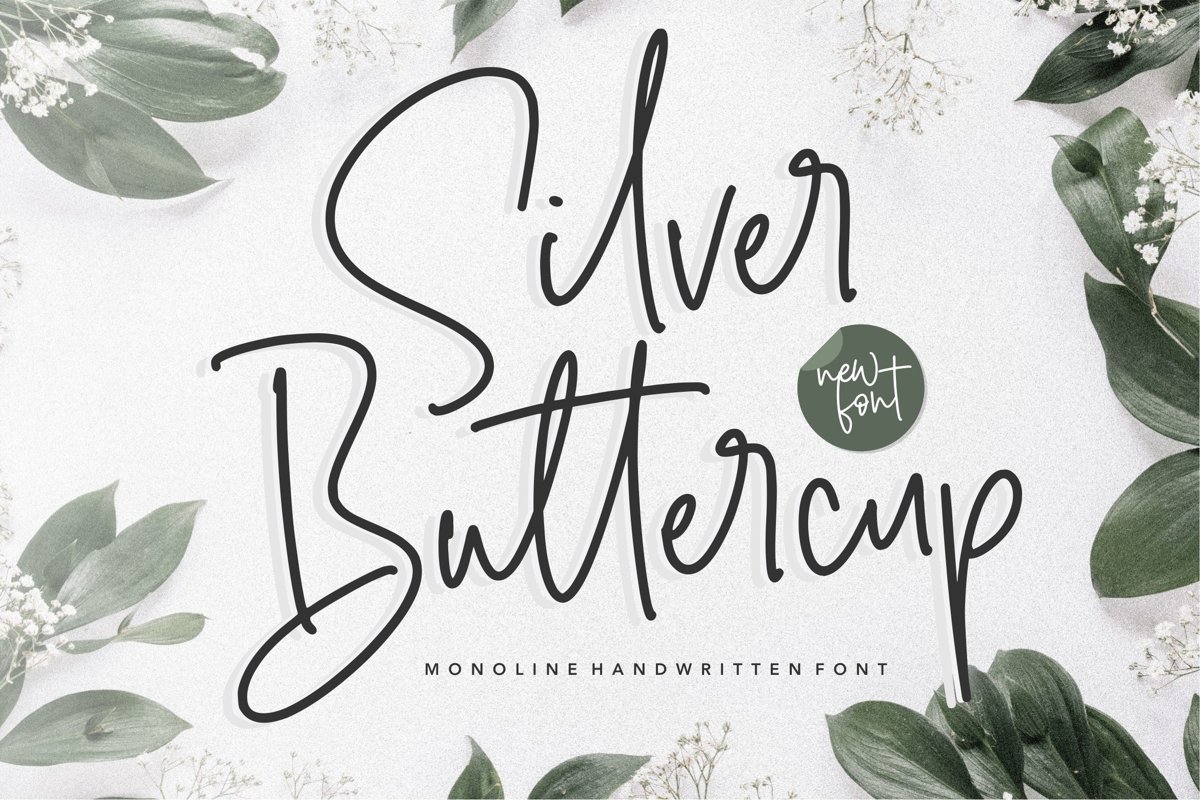
Proudly Present, Silver Buttercup Font.
Silver Buttercup is a Monoline Handwritten Font.
Silver Buttercup is perfect for product packaging, branding project, megazine, social media, wedding, or just used to express words above the background.